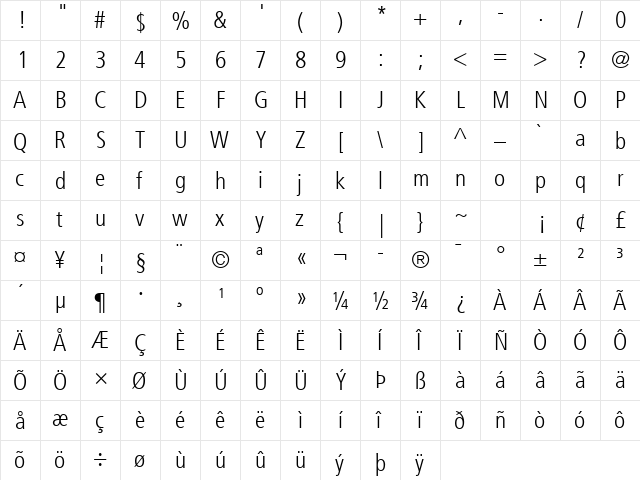
Frutiger LT Com 47 Light Condensed Font Preview
| Foundry | Linotype GmbH |
| Designer | Adrian Frutiger |
Design Context for Frutiger LT Com Typeface
Frutiger LT Com takes a measured approach to typography — its balanced proportions and neutral character make it a reliable workhorse for both digital and print work. The delicate stroke weight brings airiness and refinement to layouts. The condensed width makes it efficient for tight spaces without sacrificing legibility.